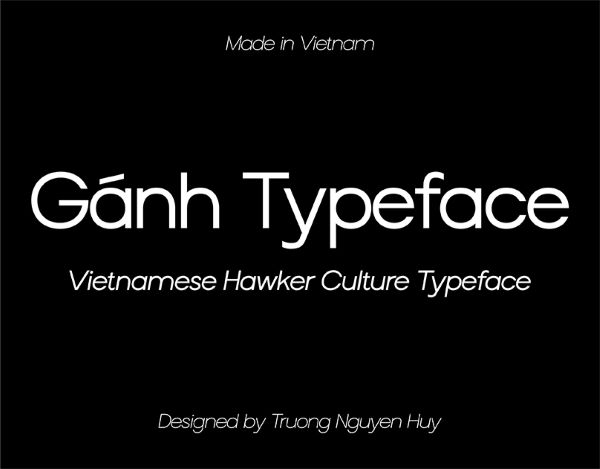
Ganh Font
Ganh by Kotie Studio and Truong Nguyen Huy is a typeface rooted in something deeply specific: the image of Vietnam’s street vendors — women carrying their wares on shoulder poles, moving through city streets with a quiet resilience that has become inseparable from Vietnamese cultural identity. Free for personal use.
Gánh is a culturally grounded display typeface in our free font collection, designed by Kotie Studio and Truong Nguyen Huy — a creative duo based in Ho Chi Minh City, Vietnam, with a practice built around meaningful, concept-led typographic design rooted in Vietnamese culture and visual heritage. Browse our full library of free fonts and discover more distinctive typefaces crafted by independent designers around the world.